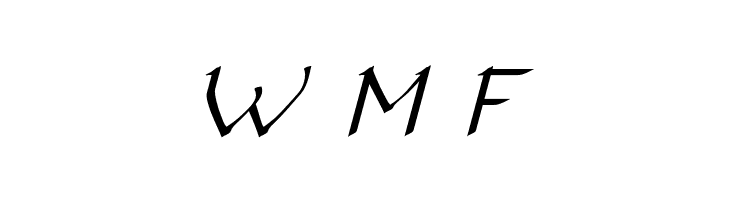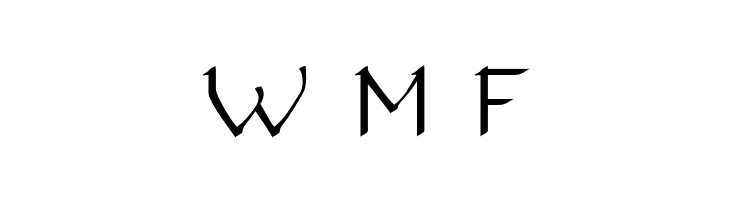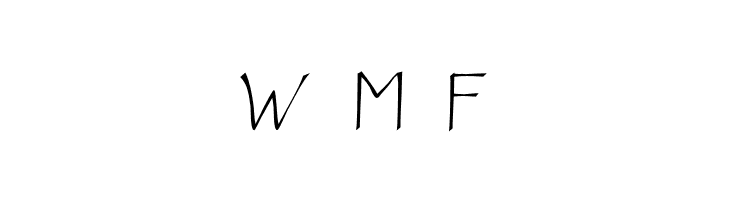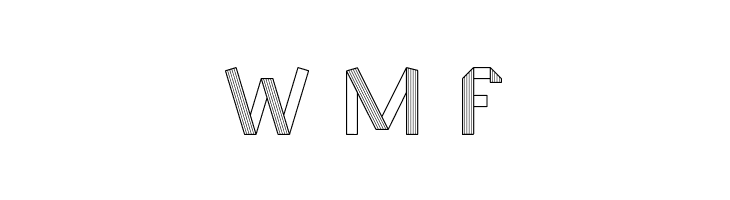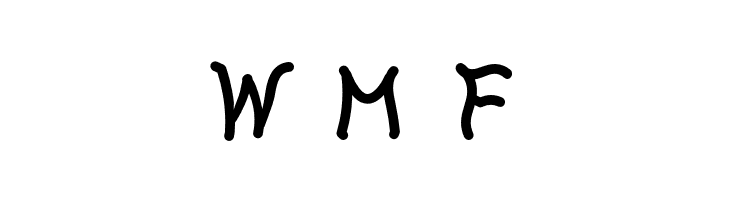
Lets Trace ruled Font
A clean, structured font ideal for educational and handwriting practice.
Let's Trace basic Font
A modern, rounded font with uniform stroke width and excellent readability.
T Ball Font
A playful, hand-drawn font with a casual, whimsical style.
Chess Font
A chess-themed icon font with bold, geometric piece designs.
Fold Font
A geometric, folded ribbon-style font with a modern, artistic flair.
Ink Calligraphic Font
A calligraphic font with elegant, flowing strokes and dynamic line thickness.
Quinze Narrow Font
A narrow, geometric font with clean lines and modern style.
Pierce Oblique Font
An elegant oblique font with smooth, flowing letterforms and a dynamic style.
Pierce Roman Font
A classic serif font with modern angular details and balanced curves.
Transcends Games Font
A bold, modern font with geometric and futuristic elements.
Tudor Rose Font
A whimsical, decorative font with playful, hand-drawn characters.
Let's Trace italic Font
A sleek, italicized font with a modern and elegant style.
Pugsley Upright Font
A whimsical and decorative font with playful embellishments and flowing forms.
Pugsley Oblique Font
A playful, oblique font with decorative elements and dynamic style.
Fifteen Narrow Font
A pixelated, monospaced font with a retro digital aesthetic.